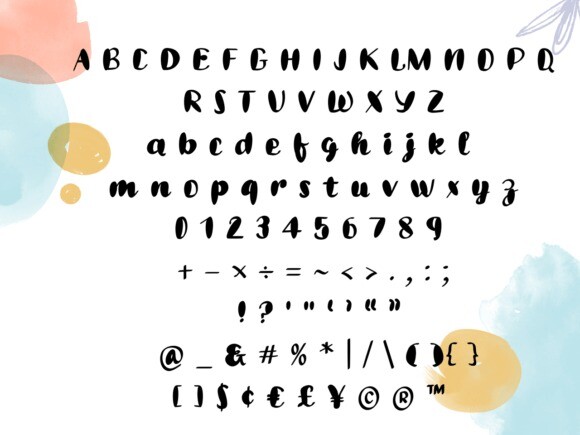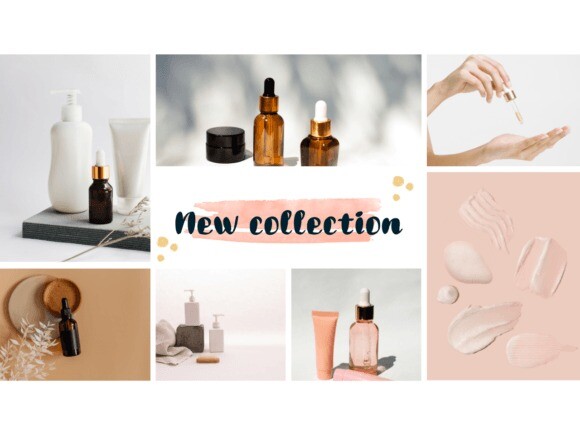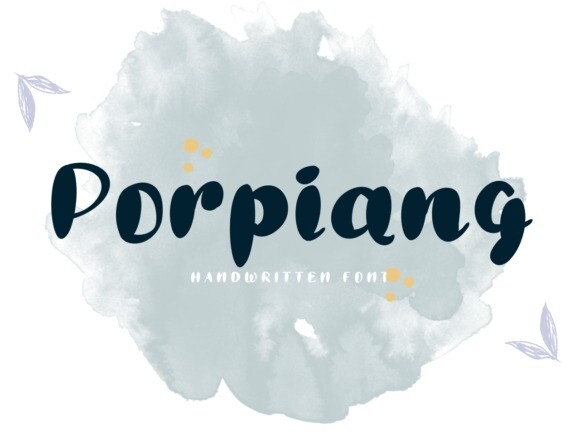
Porpiang Font
Designer: Pukka De
Porpiang Font is a sweet and friendly handwritten font. Its natural and unique style makes it incredibly fitting to a large pool of designs. The only limit is your imagination